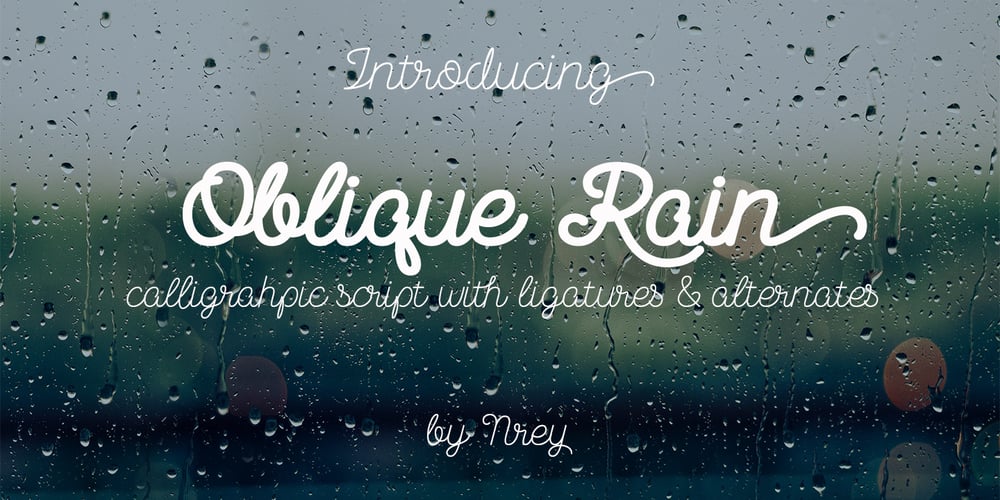
Oblique Rain Font Family was designed by Andriy Dykun and published by NREY. Oblique Rain contains 2 styles and family package options. Introducing a cool monoline script font family – Oblique Rain. Typeface is based on handwriting text, like school work or retro letters. Works great applied to logos, prints, quotes, magazine headers, clothing, and many others! Features: Uppercase Lowercase Numeral & Punctuation Standart Ligatures Stylistic Alternates PUA Encoded Multilingual Support I hope you enjoy it! Thanks!